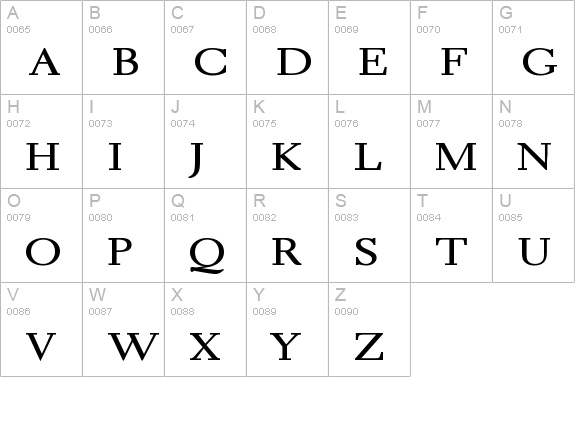
Transit 2 Wide Bold Font Details
Transit 2 Wide Bold is a strong, high-contrast, extended-width variant in the Transit typeface family \xE2\x80\x94 well suited to headlines, attention-grabbing titles, and strong calls-to-action.
Transit 2 Wide Bold font is the perfect embodiment of boldness and style. Its wide and sturdy letterforms exude confidence and make a powerful statement. This versatile typeface is ideal for any design project that requires a strong and impactful visual presence. With its bold weight and wide proportions, Transit 2 Wide Bold font commands attention and demands to be noticed. Whether used for headlines, titles, or logos, this font will make your message stand out and leave a lasting impression on your audience. But the best part is, Transit 2 Wide Bold font is freely available to download at FontsMarket.com. You can now enhance your projects with this remarkable font without any cost. This means you have the opportunity to elevate your designs without breaking the bank. So why wait? Download Transit 2 Wide Bold font today from FontsMarket.com and unleash the power of boldness in your designs. With its striking presence and availability at no charge, this font is a must-have for any designer or creative professional.